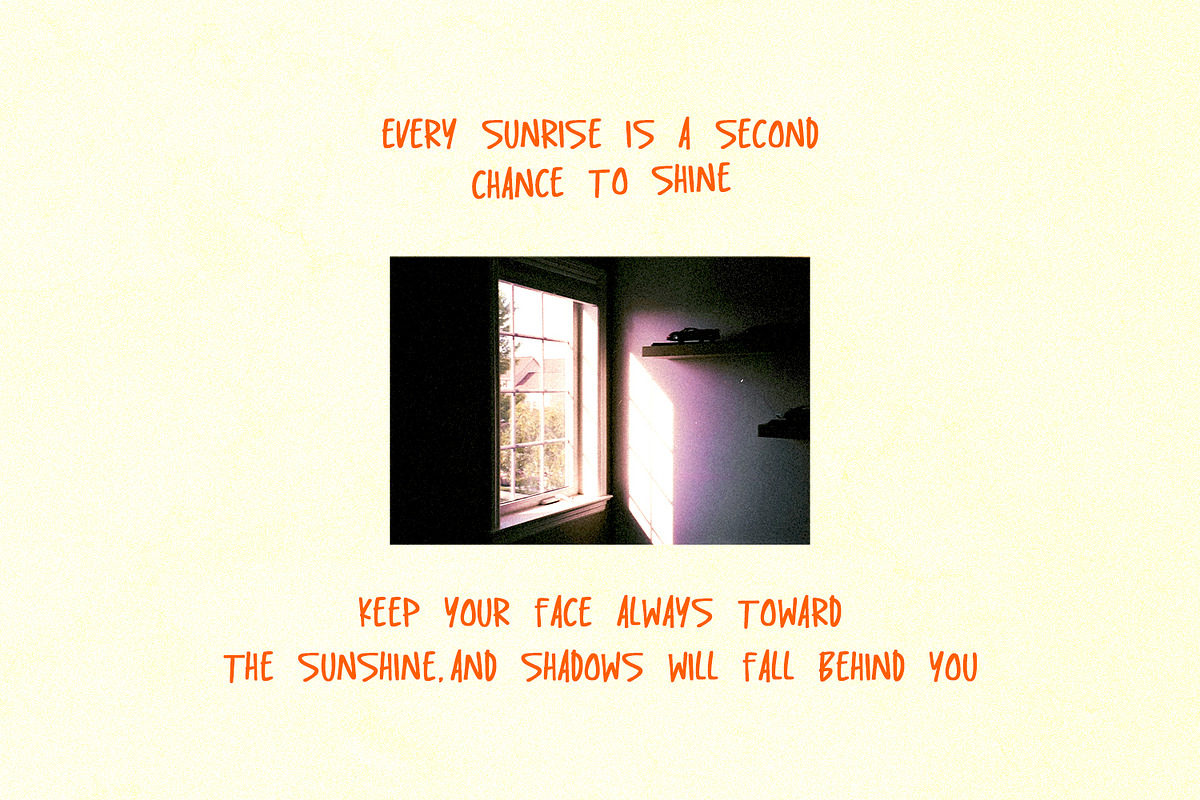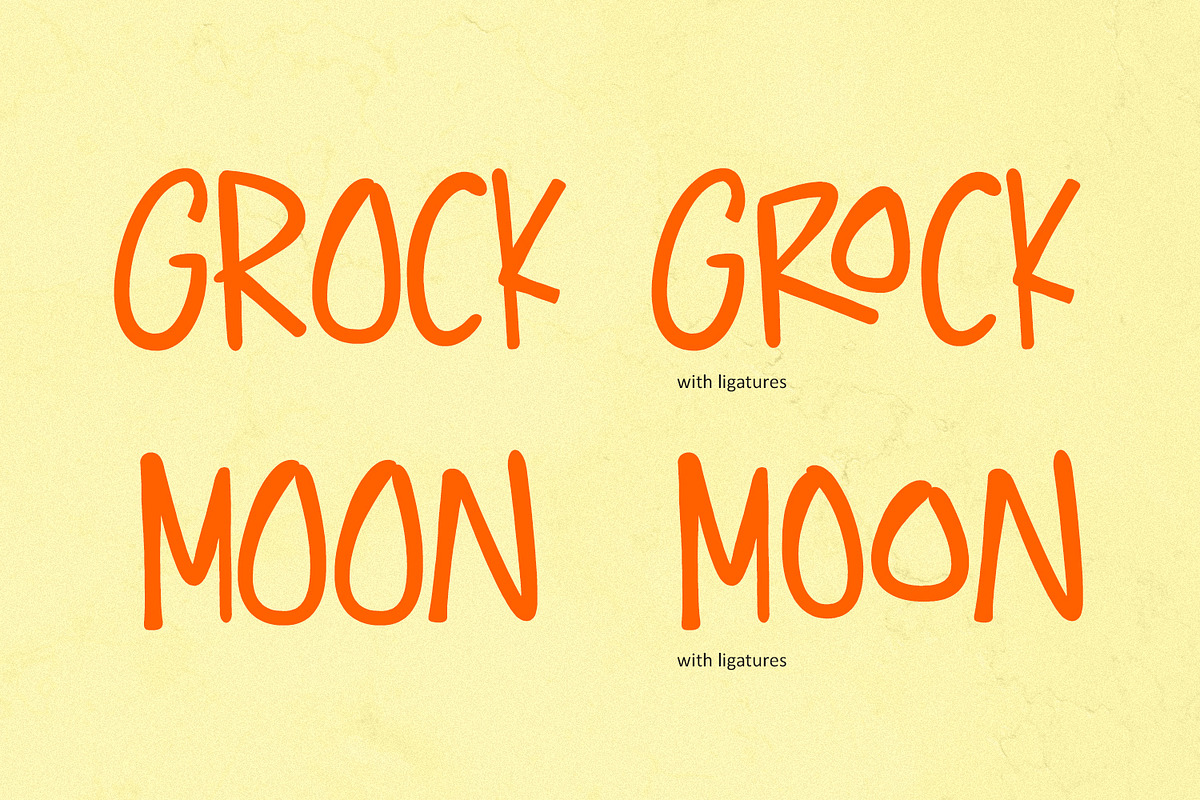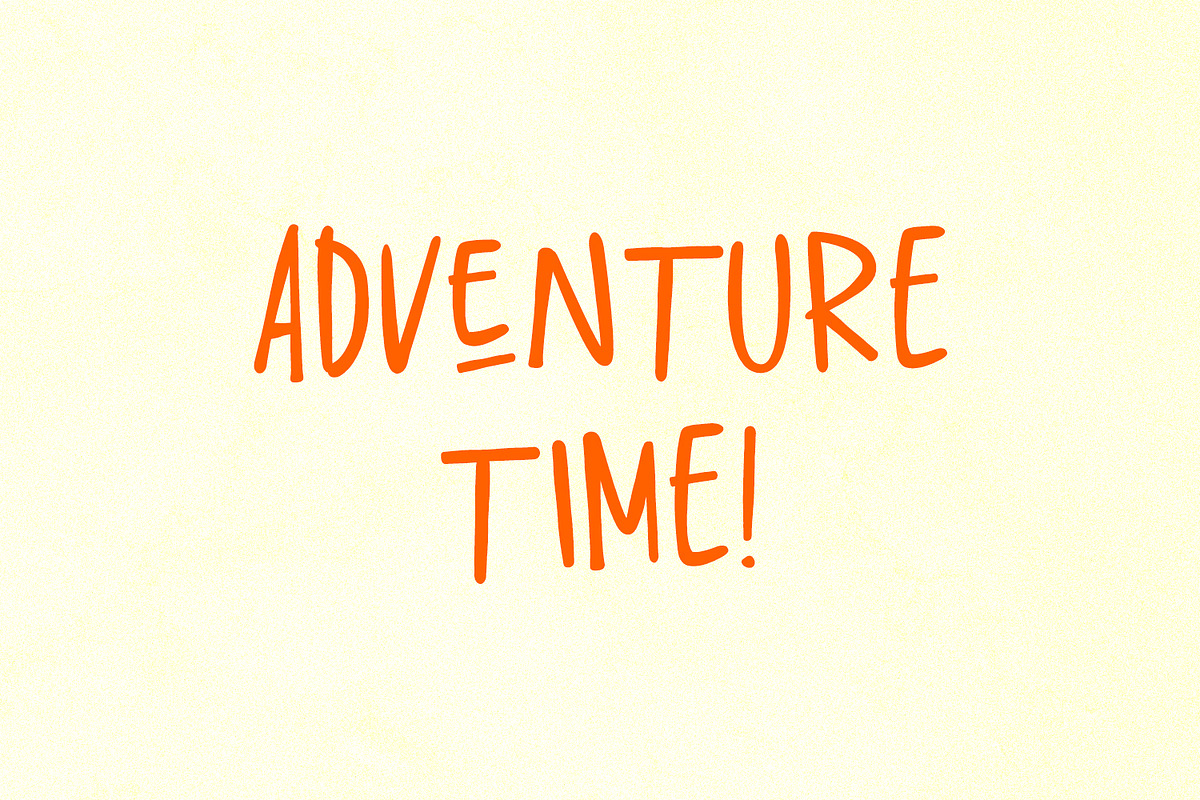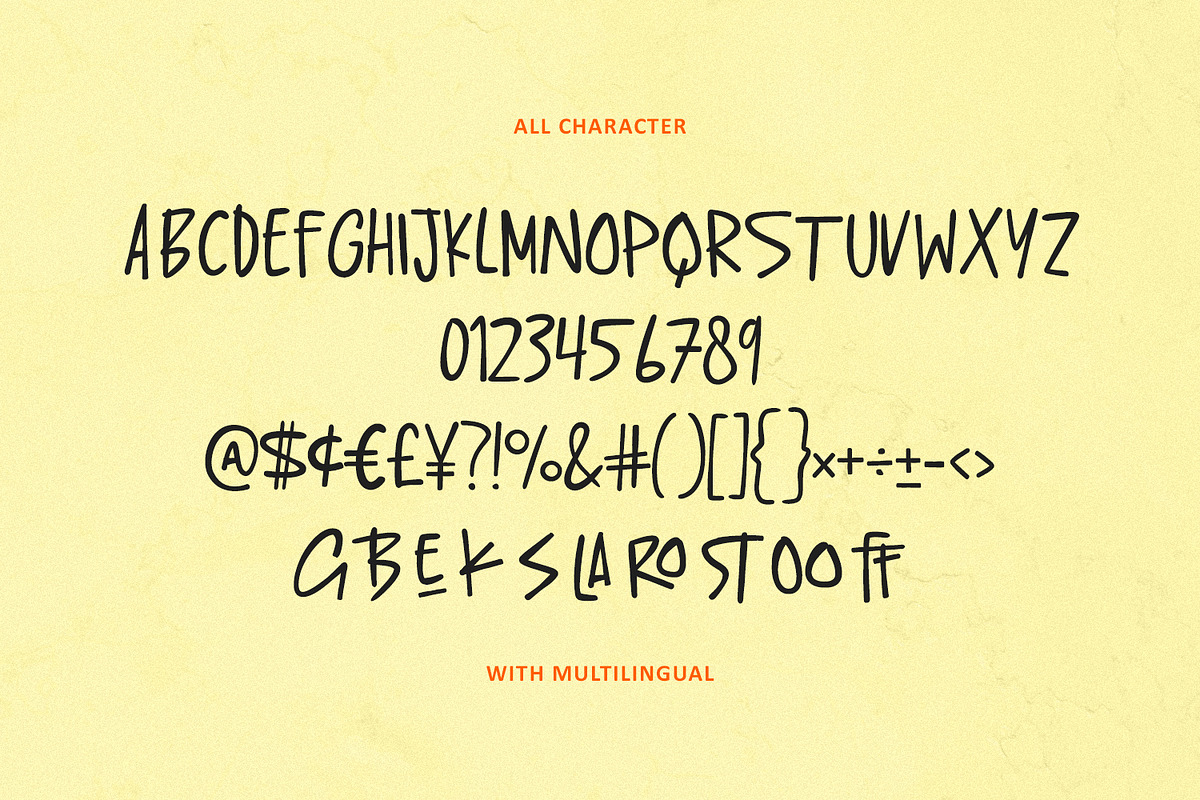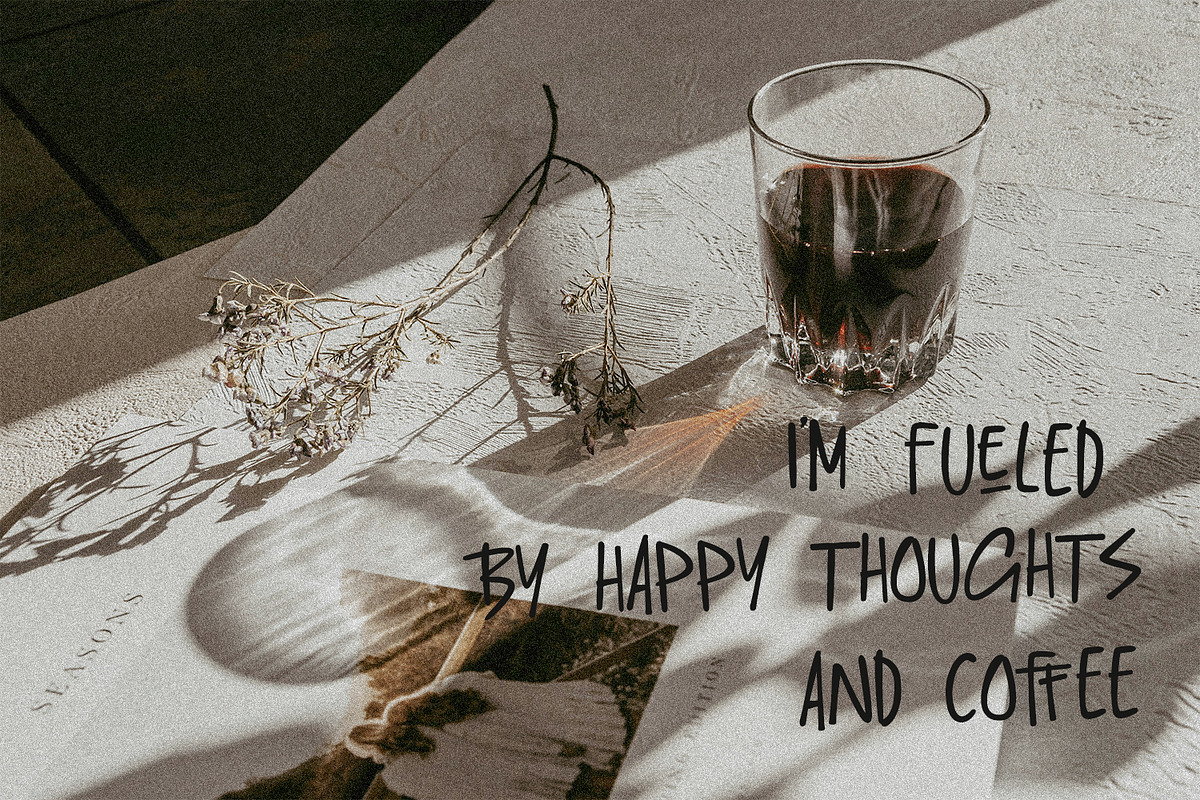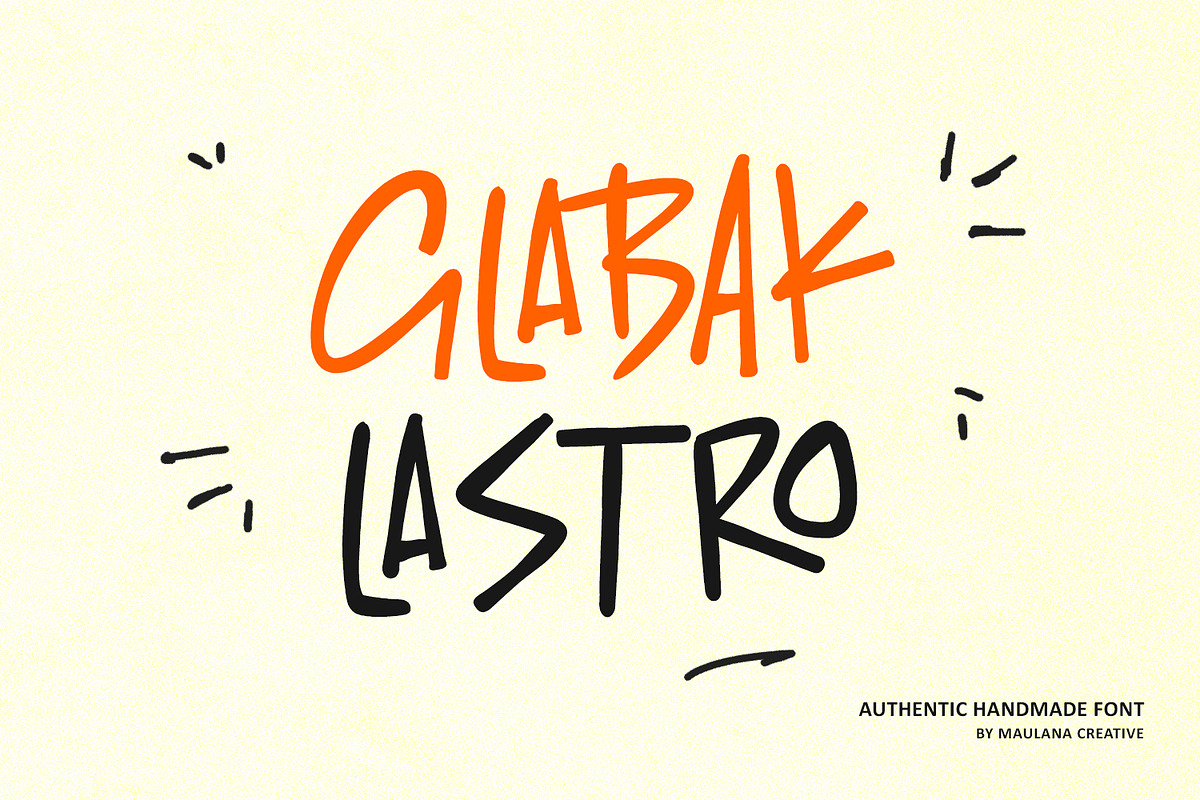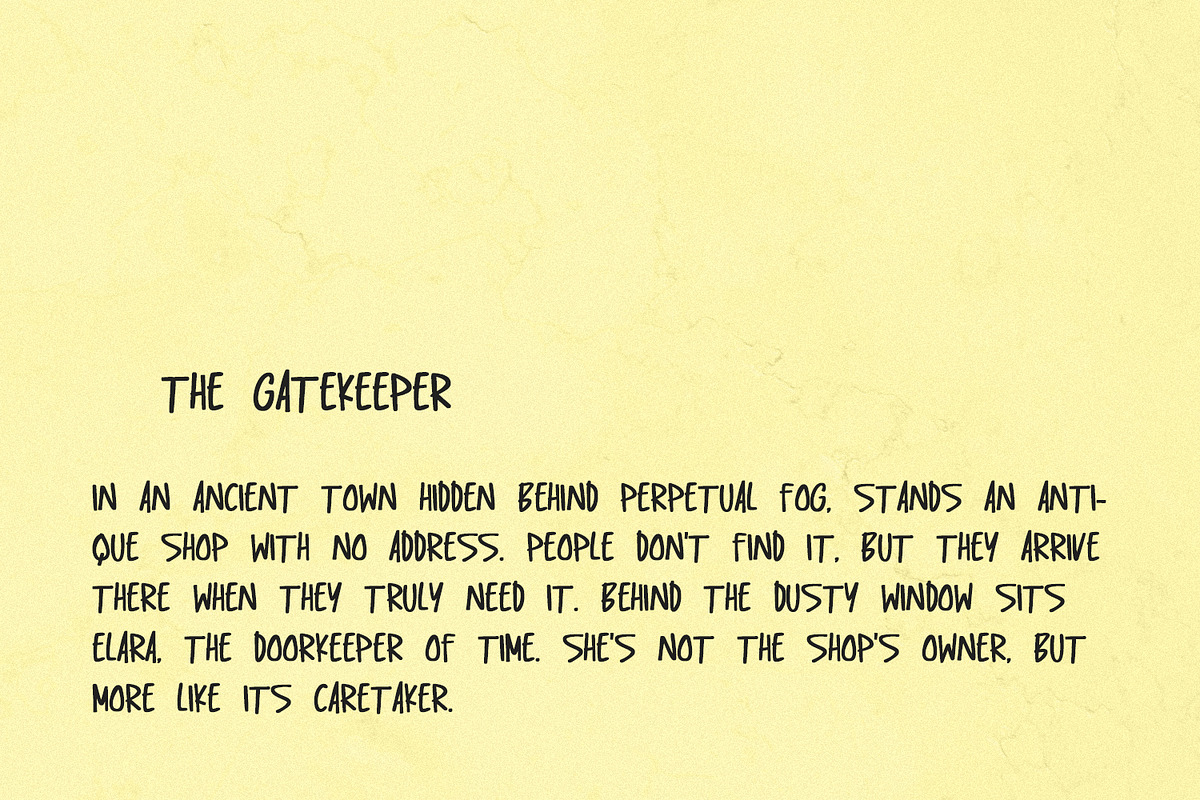
Glabak Lastro Authentic Handmade
Meet Glabak Lastro, an Authentic Handmade Font bursting with personality and a playful, casual energy. Glabak Lastro is a bold, all-caps typeface that captures the raw, imperfect charm of genuine hand-drawn lettering. Its slightly irregular baseline and distinct brush-like strokes give it an organic, friendly, and energetic feel. It’s perfect for projects that need a genuinely personal, unpolished touch, moving away from sleek perfection towards authentic character. This font authentic Handmade Texture, feels real and grounded, not digital or sterile. All caps versatility, great for headlines, titles, and short statements. Includes smart ligatures to prevent repetitive letterforms and enhance the natural handwritten look.
This font awesome font quotes and social media graphics, book covers, children's products, casual branding, comic book lettering, fun packaging, and any design where you want to communicate a spontaneous, happy, or indie vibe. Get Glabak Lastro and add a splash of genuine, energetic personality to your work!
- Ligatures and Alternate Style